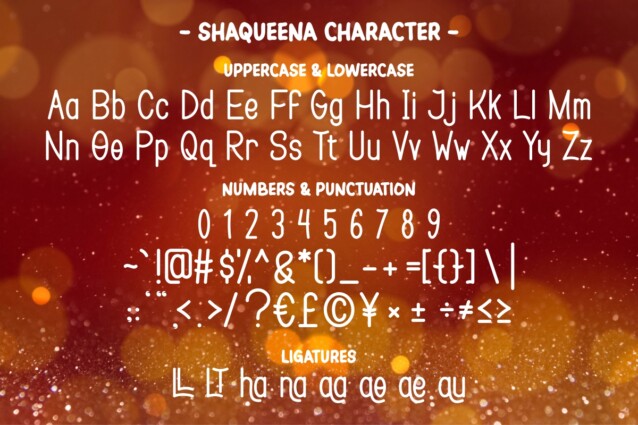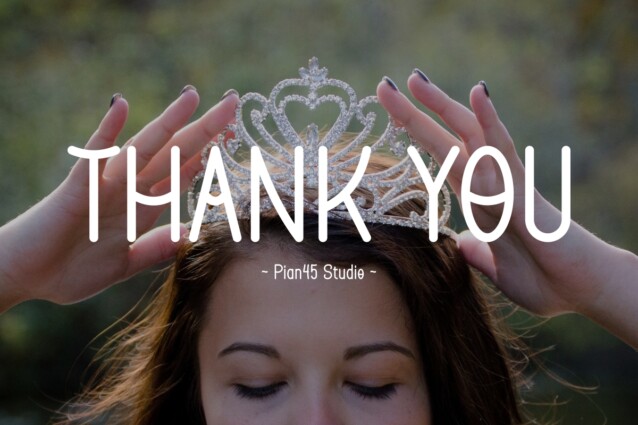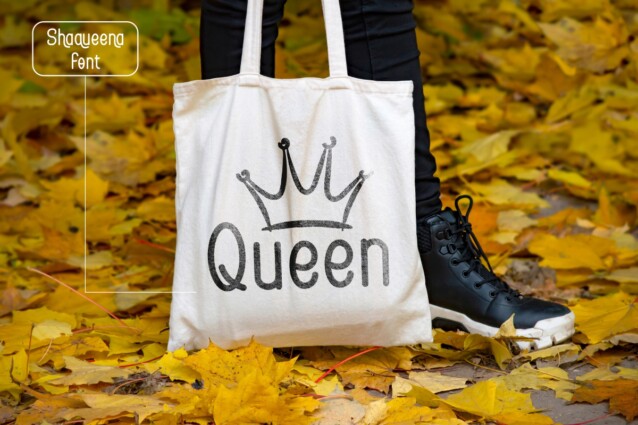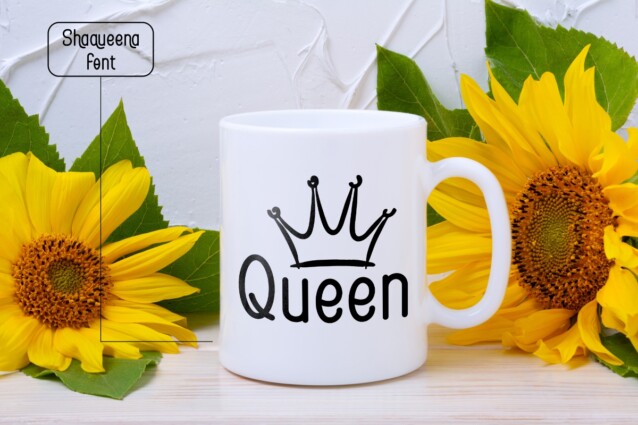
Shaqueena Font
Shaqueena Font is a captivating and elegant display beauty font designed with a theme that embodies the essence of a beautiful young girl. This font exudes grace and sophistication, making it the perfect choice for projects aimed at celebrating the charm and loveliness of girls. With its stylish and ornate letterforms, “Shaqueena” adds a touch of glamour to any design, making it ideal for invitations, branding, and creative projects that demand a feminine and exquisite touch.